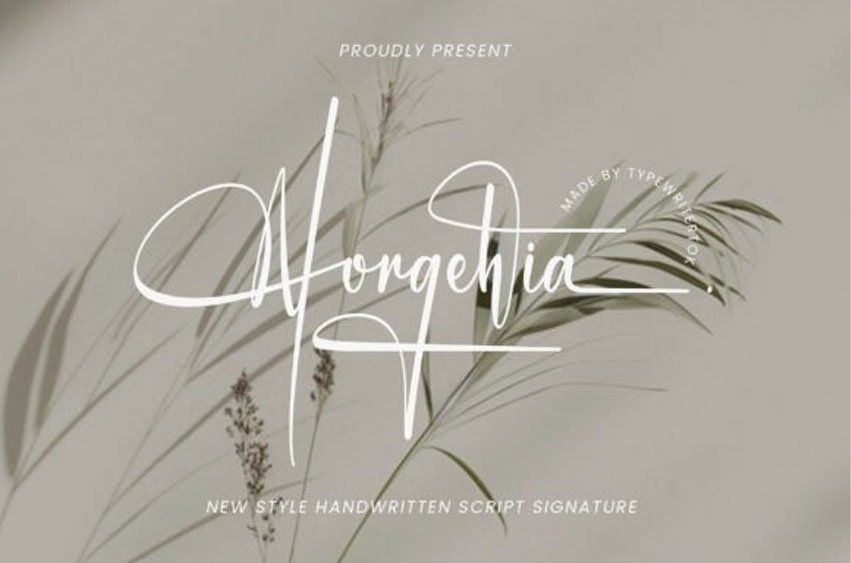
Norgehia Font
Norgehia Font is a script signature font that exudes elegance and sophistication. With its fluid strokes and natural handwriting feel, this font is perfect for branding, logo designs, wedding invitations, business cards, social media posts, and luxury packaging.
Its graceful and stylish appearance makes it an excellent choice for projects that require a refined and personal touch.